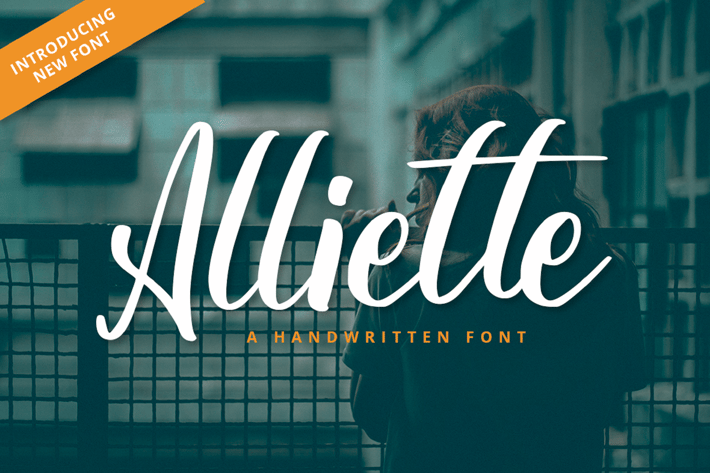
Handwritten Font
One of the most elegant,exquisite yet strong font, can be used for loads of different projects, advertisements and promotions. Go ahead and use it on your website, for your social media branding, Pinterest banners, printed invitations, and more!
Inspire your audience, clients, or guests with this stylish, handwritten font.
Multilingual & Ligature Support
Full sets of Punctuation and Numerals